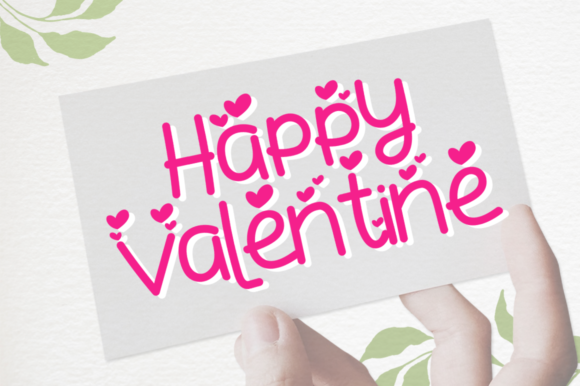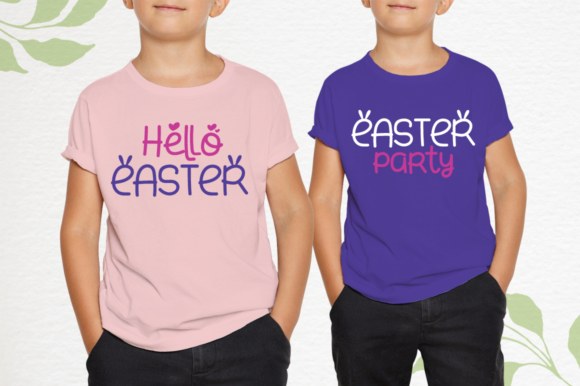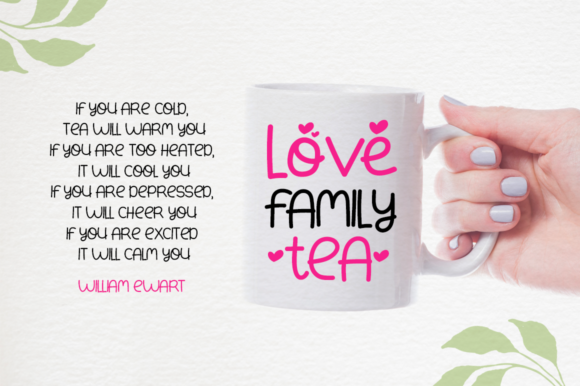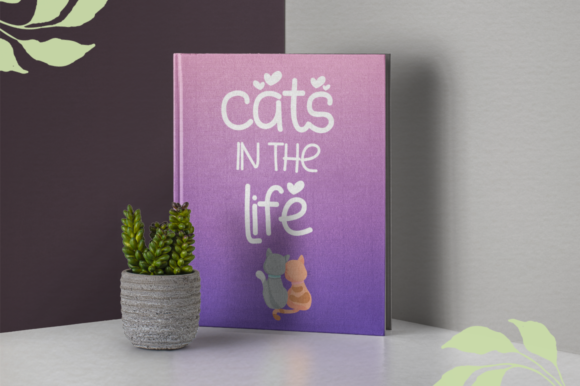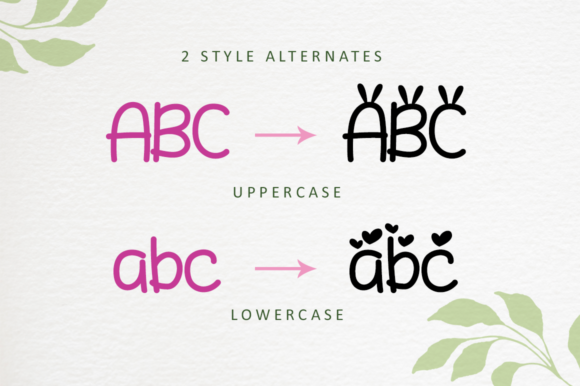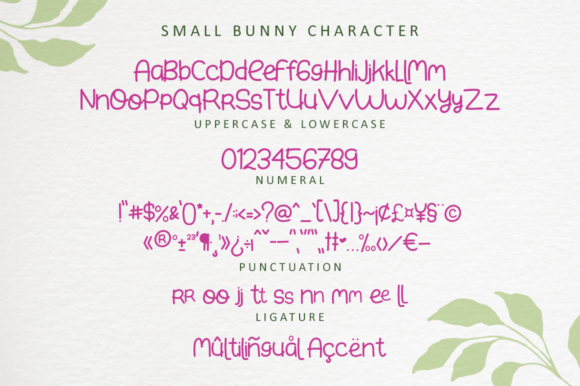
Introduction to Small Bunny Font
Small Bunny is a cute and fun display font with a modern feel.
Get inspired by its unique charm, and turn any design idea into a true standout .
Key Features of Small Bunny Font
Why Choose Small Bunny Font?
Small Bunny Font offers exceptional quality and versatility, making it a valuable addition to your design toolkit. Whether you’re creating for personal projects or commercial use, Small Bunny Font delivers professional results.